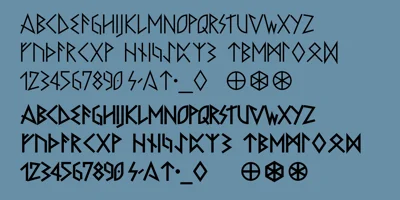
Faux Runic Font
The Faux Runic Font is a strikingly unique and often mystical display typeface, characterized by its angular, blocky forms, and a distinct aesthetic that mimics ancient runic alphabets, evoking a sense of Norse mythology, arcane spells, or fantasy realms. Imagine its captivating characters gracing the titles of epic fantasy novels, adding an authentic, ancient feel to Viking-themed game interfaces, or creating cryptic inscriptions for medieval-inspired art projects. Its bold yet often stylized construction and powerful presence also make it an excellent choice for role-playing game materials, historical reenactment branding, mystical product packaging, and any design where a sense of myth, magic, and rugged authenticity is paramount. Whether you're aiming for a dark, fantastical look or a more heroic, traditional aesthetic, Faux Runic Font delivers with its unmistakable character, ensuring your visuals are both intriguing and truly memorable.
What makes Faux Runic Font so exciting is its profound ability to instantly transport viewers to a world of ancient lore and mystical power. In a visual landscape that thrives on unique impact and thematic depth, this font offers a refreshing dive into a foundational era of storytelling and symbolic communication. It speaks to the mystery of forgotten languages and the strength of ancient cultures. It’s more than just a typeface; it’s a thematic element that can instantly set a cool, arcane, and wonderfully immersive tone for a project, making content feel more engaging and unique. Designers will find it an invaluable asset for creating visuals that truly resonate with an audience seeking connection with fantasy, history, and a touch of the supernatural.
The Faux Runic Font family is typically structured to offer a range of styles that amplify its angular and mystical appeal. Beyond the primary Faux Runic Regular typeface (which might feature a sharp, almost chiseled quality), you might find companion styles such as a more impactful Faux Runic Bold for stronger emphasis, or perhaps Faux Runic Outline or Faux Runic Textured versions to add different visual textures and further enhance its ancient or weathered aesthetic. Given its distinct display nature, the family may also include unique ligatures or alternate characters that provide slight variations while maintaining the overall runic feel. These diverse family members provide designers with the flexibility to establish a clear typographic hierarchy and maintain a consistent, high-impact, and authentically mystical aesthetic across all elements of their project, from prominent headlines and logos to smaller, illustrative elements that demand an ancient touch.
For projects demanding an ancient, mystical, and powerfully unique aesthetic, consider the captivating Faux Runic Font. It's an excellent choice to infuse your designs with a sense of lore and unmistakable magic.